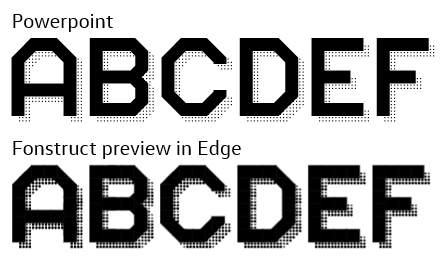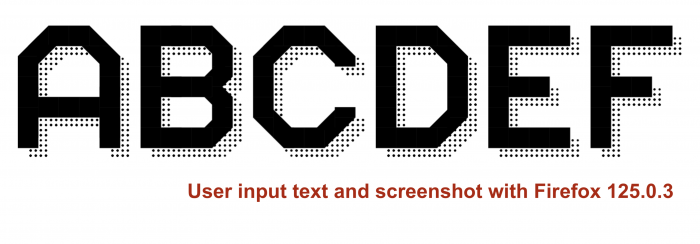
• This is just excersise to see how shades could be mimicked.
What's your point?
@Peter (Petruuccio) Toda - Very nice project.  I would say the diagonal dots are 1 line too many, making them feel "fatter" than they should.  :^)
@elmoyenique my point is, its hard to predict the overal look based just on the preview on Fontstruct page. Fine dots might look ok here, but on downloaded font barely visible. And thanks for the example, it seems different browsers may have slightly different effect on this.
Btw. I learned something different. When I tried to fast replace the custom composite brick with another custom composite brick, it did not work directly as I expected, but eventually i found out, that it first has to be replaced with one of core bricks and then that core brick can be replaced with my other composite just fine.
@Goatmeal thanks for your words. I see what you mean, but until I figure how to split or shift the dots for diagonal strokes, I cant tidy up properly.
OK, I understand you now. It also bothers me to see areas of my glyphs in the FS preview that appear thickened or overlapped, which apparently don't fit right... This sometimes helps me zoom in on those areas and discover small errors, but other times I just check that and everything was correct and it is a defect of the preview that at first I noticed as defective. There are even times I download and install the font to check in a design program how those conflict areas work, and that usually helps.
@Peter (Petruuccio)  - I see your point.  Unfortunately, I cannot offer any ideas at this time as I am on a work computer...  :^(